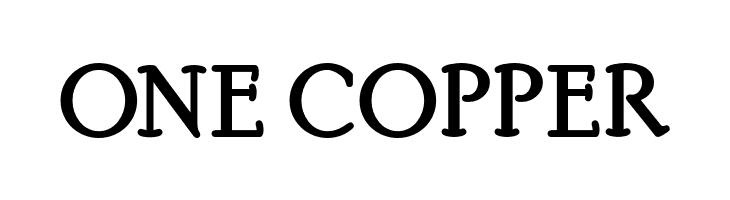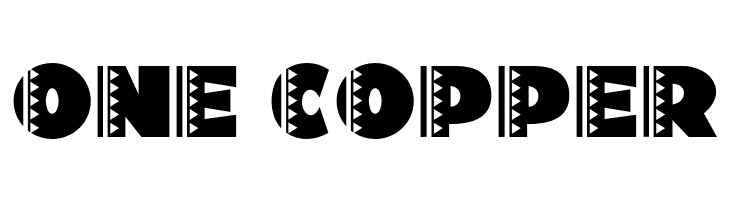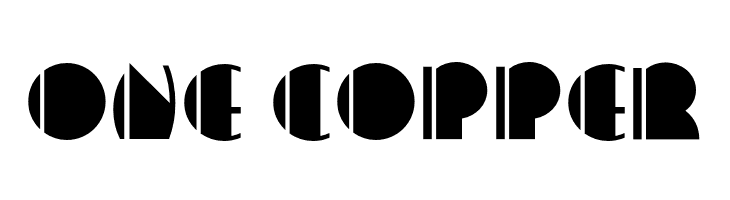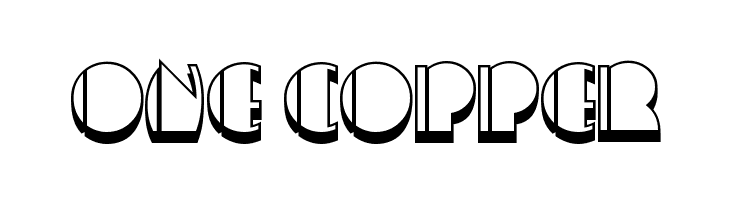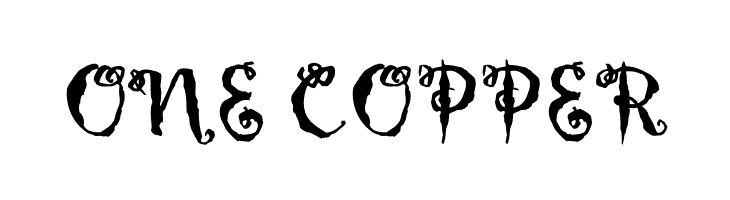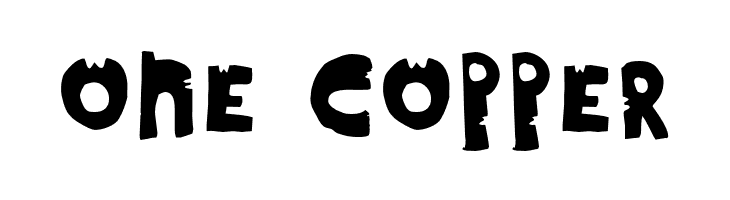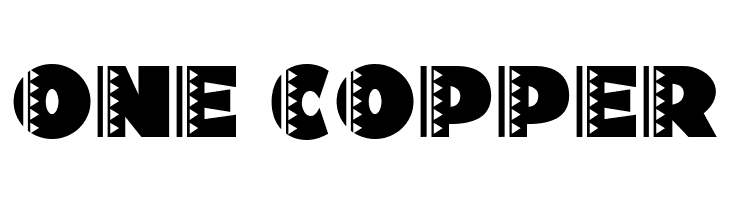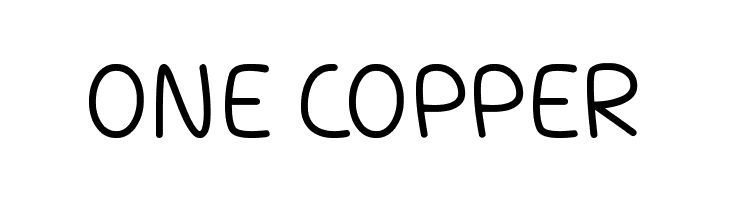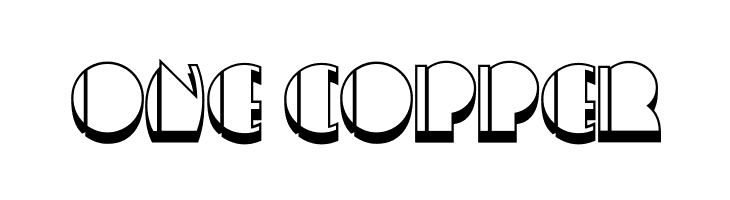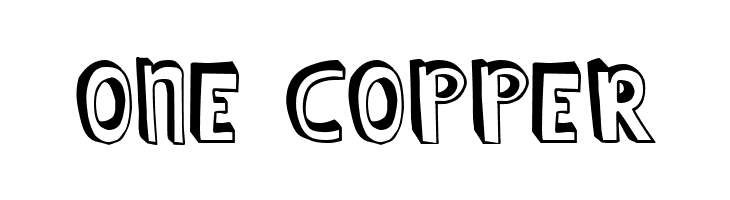
A bold, geometric font with angular shapes and dynamic line weights.
A playful, rounded font with bold strokes and a friendly vibe.
A bold, geometric font with sharp angles and a modern aesthetic.
A modern, geometric font with elongated, narrow letterforms and consistent stroke width.
A decorative font with glyph-like symbols resembling ancient hieroglyphs.
Decorative pictographic font with ancient, glyph-like symbols in bold circles.
A bold, geometric font with a 3D shadow effect, ideal for impactful designs.
A bold, geometric font with Art Deco influences and unique cutout designs.
A bold, geometric font with a 3D shadow effect, perfect for eye-catching designs.
A bold, geometric font with high contrast and modern, abstract shapes.
A playful, handwritten font with dynamic strokes and an informal style.
A playful, hand-drawn font with bold, outlined characters and a three-dimensional effect.
A playful, bold font with jagged edges and a cartoonish style.
A bold, irregular, and playful hand-drawn font with a textured edge.
A playful handwritten font with a casual and friendly style.
Ornate, illustrative font using vintage medical and anatomical artwork.
A bold, geometric font with sharp angles and a modern, gothic style.
A bold, geometric font with sharp, angular characters for impactful designs.
A playful, vintage-style font with rounded characters and subtle serifs.
A playful, vintage-inspired serif font with bold, rounded characters.
An ornate and decorative font with intricate floral designs within each letter.
A bold, decorative font with tribal patterns and geometric shapes.
A bold, decorative font with tribal-inspired patterns inside each character.
A bold, playful font with a vintage flair and unique serifs.
A playful and quirky serif font with exaggerated serifs and unique character shapes.
A chaotic, distressed font with bold, jagged strokes and a grunge aesthetic.
A bold, distressed font with a vintage, textured appearance.
A modern, bold font with rounded edges and a geometric design.
Automotive-themed pictorial display font using car parts and tools for each character.